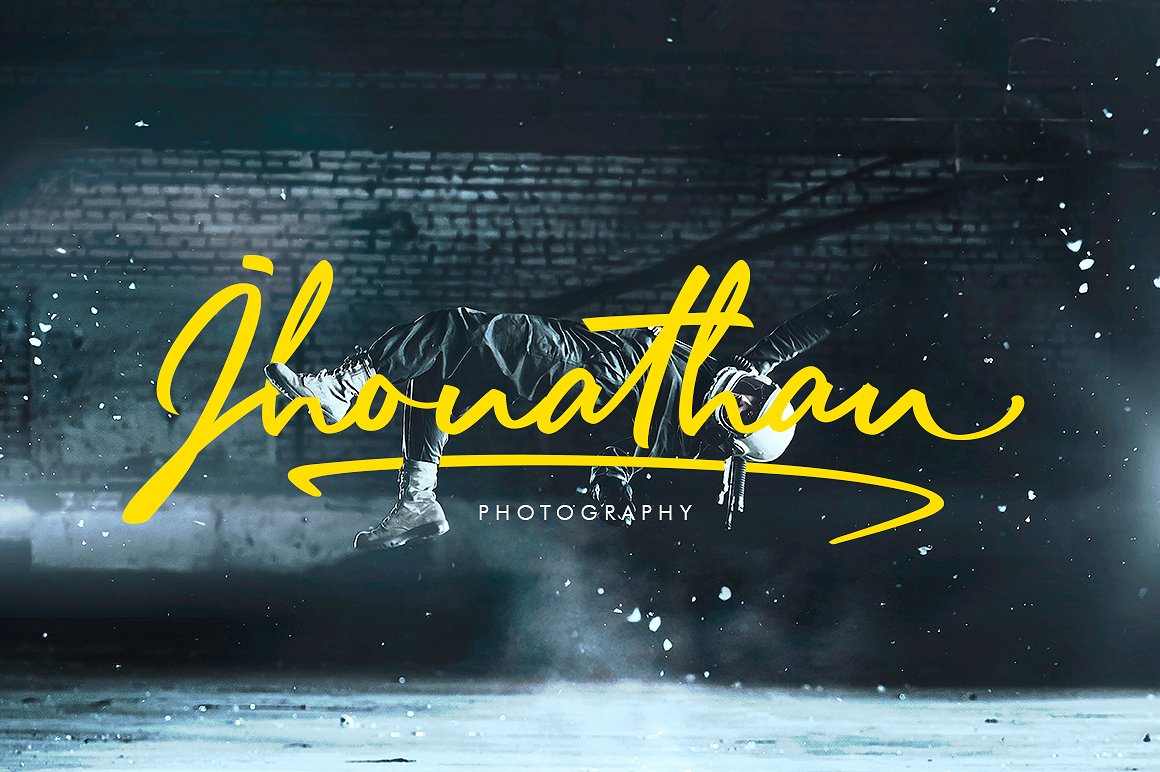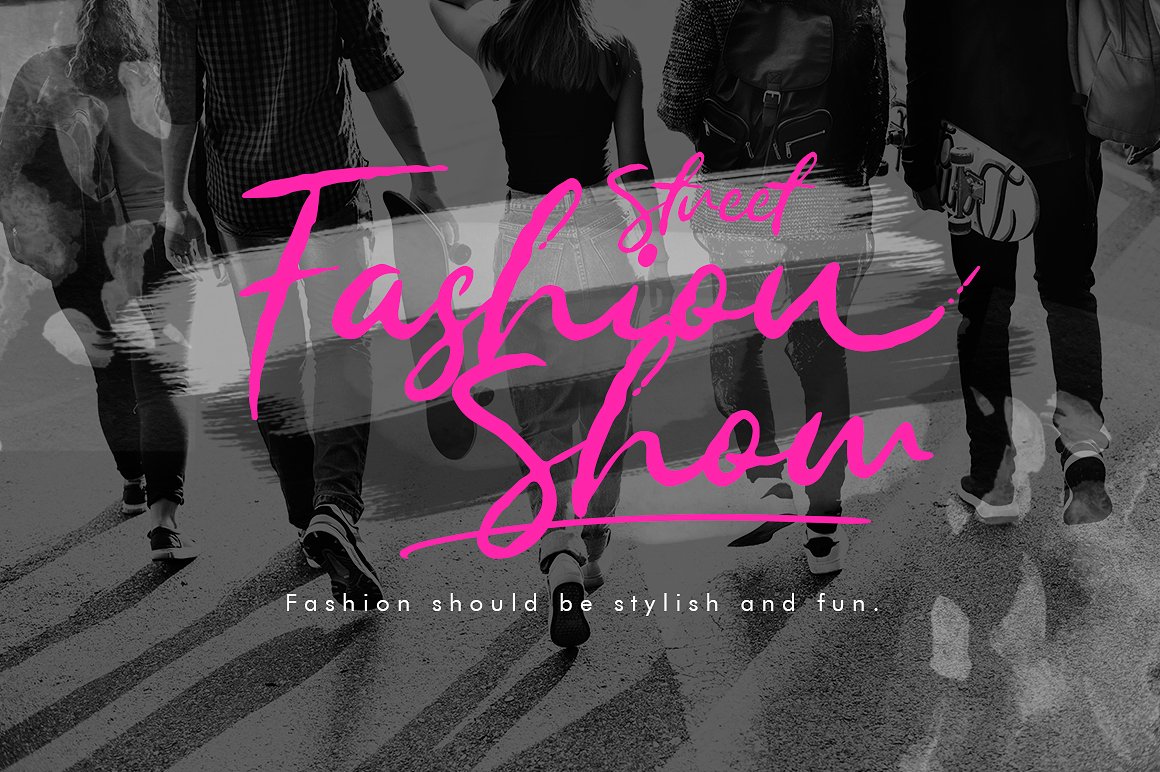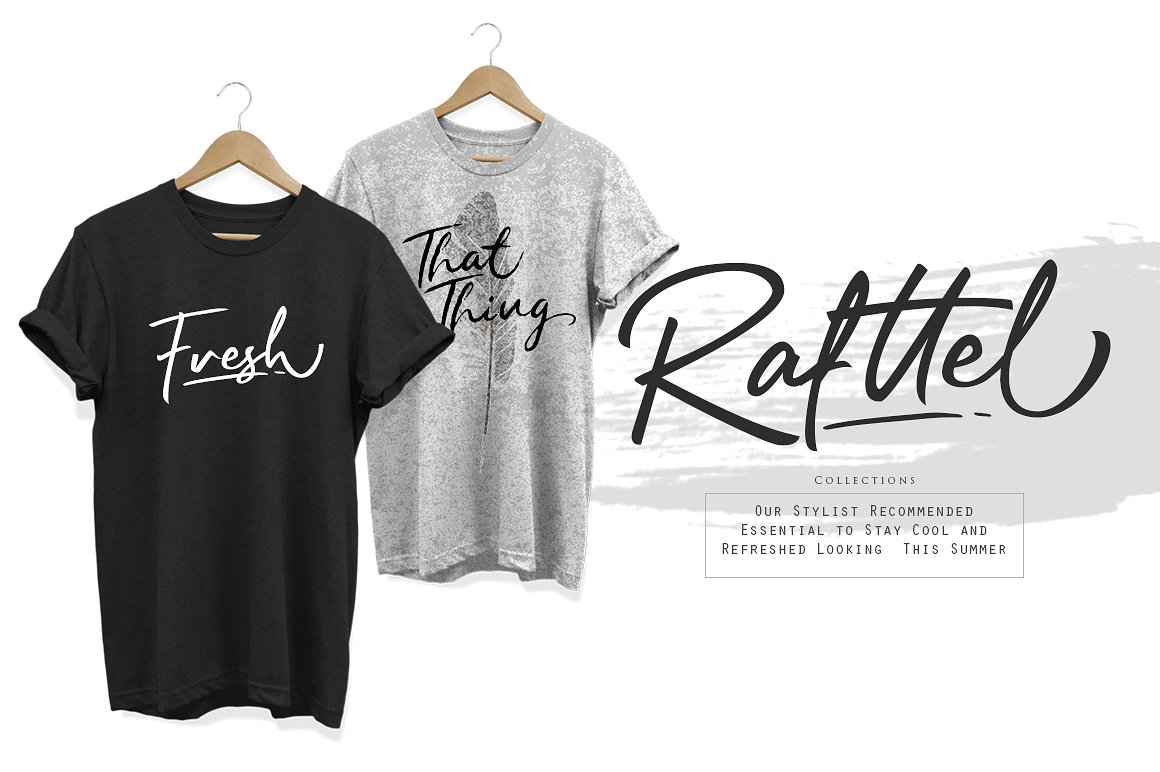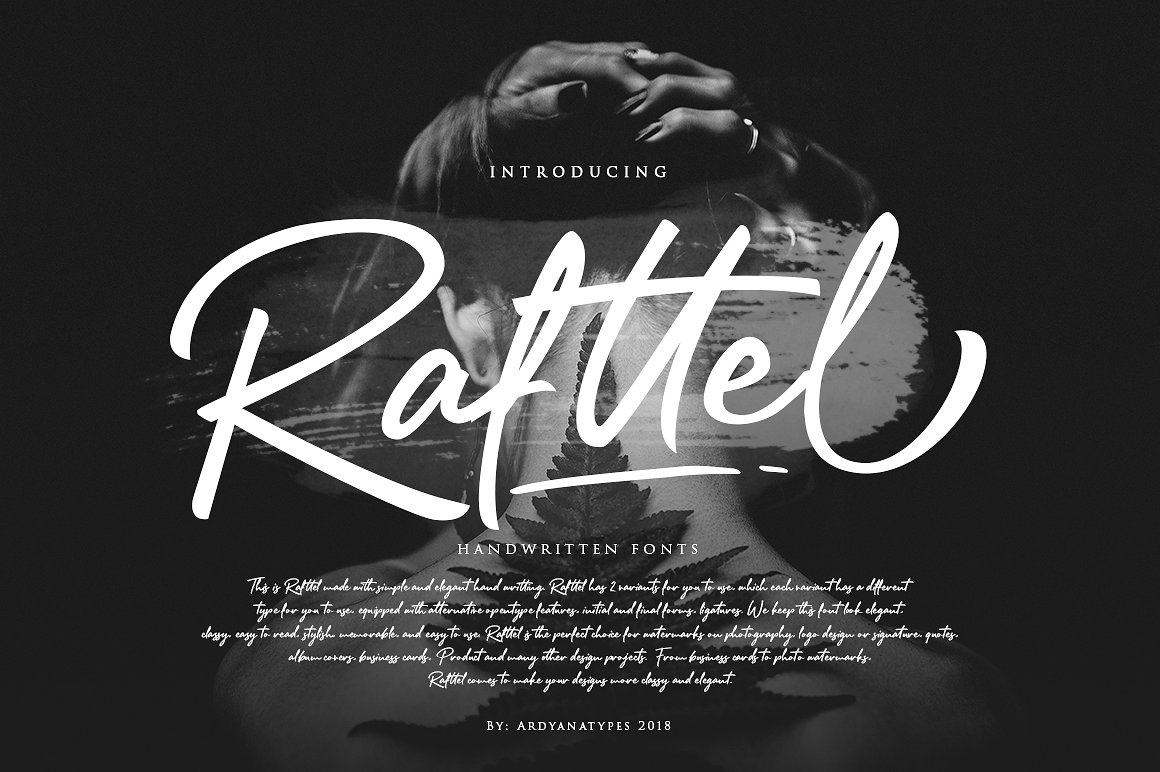
Rafttel Script Font
Rafttel Font the legacy, lifestyle and casual luxury with a natural free flow. This fonts also looks very sweet with simple style. Introducing Rafttel Font. Rafttel font made with simple and elegant handwritting, Rafttel font has 2 variants for you to use, which each variant has a different type for you to use, equipped with alternative opentype features, initial and final forms, ligatures. Rafttel font is the perfect choice for watermarks on photography, logo design or signature, quotes, album covers, business cards, and many other design projects.